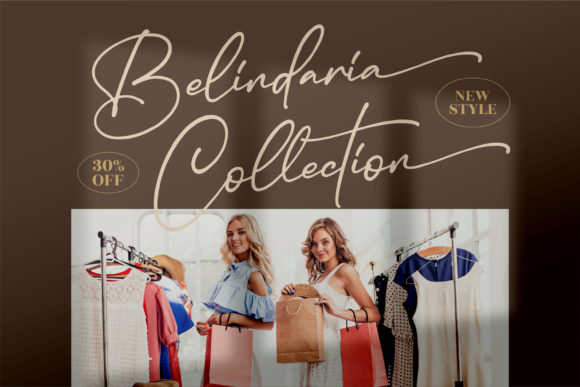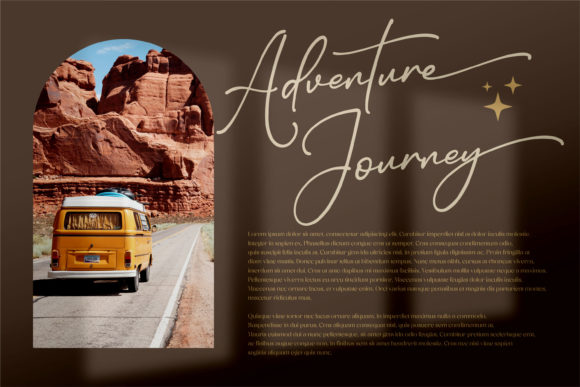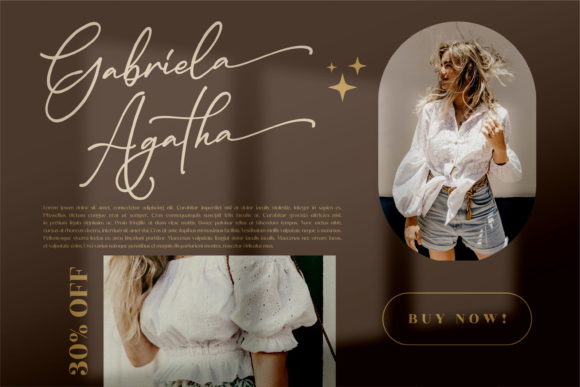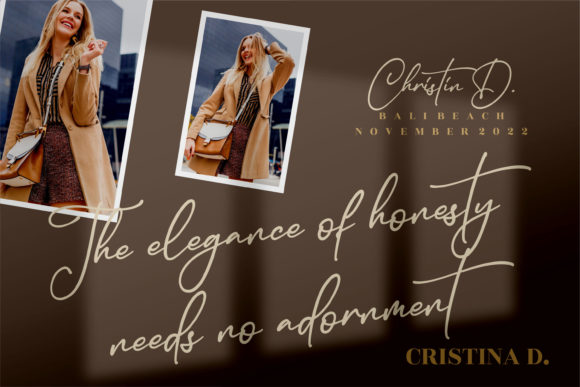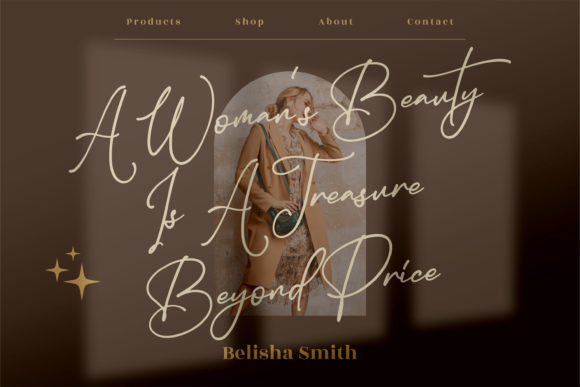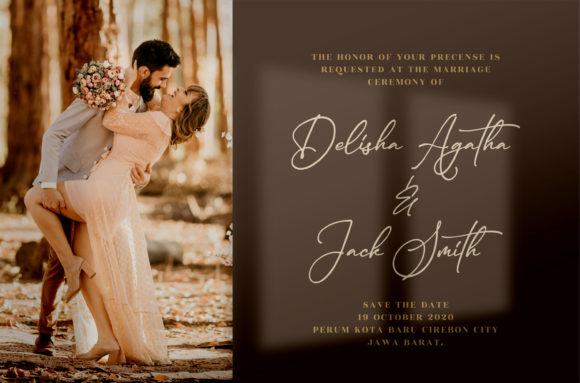
Do you remember the moment when you saw a beautiful, elegant font used in a fashion magazine or a luxury brand’s logo, and you thought, “I need to use this in my next project”? That’s exactly how I felt when I stumbled upon the Casterdam Baletica Font. Its smooth curves and vintage style are perfect for adding a touch of sophistication to any design.
Casterdam Baletica Font is a beautifully balanced script font designed specifically for fashion branding and editorial designs. With its PUA encoding, you can access all of the glyphs and swashes with ease, making it a valuable addition to any designer’s toolkit. Whether you’re working on a high-end fashion campaign or a lifestyle magazine, this font is sure to elevate your design and make it stand out.
Casterdam Baletica Font Key Features
- Font Family: Casterdam Baletica
- Unique Characteristics: Elegant, sophisticated design with a touch of classic ballet-inspired flair, suitable for luxury branding, fashion, and high-end publishing
- Font Weight: Offers a range of font weights from Light to Extra Bold, allowing for versatile design applications
Casterdam Baletica Font Review
First impressions of the Casterdam Baletica font are promising. The font’s elegant, cursive design is reminiscent of classical ballet-inspired aesthetics, which makes it suitable for a wide range of creative projects ✨.
- One of the standout features of the font is its high level of customization. Users can adjust the font’s slant, spacing, and size to suit their needs.
- The font supports a wide range of languages, making it a versatile option for international projects.
- The font’s smooth, flowing lines create a beautiful visual effect, particularly when used in headings or titles.
However, there are some limitations to consider ⚠️:
- The font may not be suitable for use in small text sizes, as the characters can become difficult to read.
- The font’s cursive design may not be ideal for projects that require a more formal or traditional look.
- Some users may find the font’s customization options overwhelming, particularly if they are not familiar with font editing software.
In my opinion, the Casterdam Baletica font is a great option for designers looking to add a touch of elegance and sophistication to their projects. While it may not be suitable for every project, it’s definitely worth considering for the right type of design ✨.
For best results, use Casterdam Baletica Font in designs that require a touch of elegance and sophistication, such as:
- Fashion and lifestyle branding
Remember to pair the font with high-quality images and a clear design concept to achieve maximum impact.
Alternatives to Casterdam Baletica Font
Oswald is a sans-serif font that is highly legible and versatile. It is suitable for both body text and headlines. Oswald has a more modern feel compared to Casterdam Baletica Font, which has a more classic and elegant look. Use Oswald when you need a clean and minimalist design.
Lato is a sans-serif font that is highly customizable and has multiple weights. It has a more modern and sleek look compared to Casterdam Baletica Font. Lato is suitable for both body text and headlines, and it is particularly well-suited for digital media. Use Lato when you need a modern and sophisticated design.
Playfair Display is a serif font that is highly decorative and elegant. It is suitable for headlines and titles, but not for body text. Playfair Display has a more classic and luxurious look compared to Casterdam Baletica Font. Use Playfair Display when you need a high-end and sophisticated design.
Arimo Font
Arimo is a sans-serif font that is highly legible and has a clean design. It is suitable for both body text and headlines. Arimo has a more modern and minimalist look compared to Casterdam Baletica Font. Use Arimo when you need a simple and easy-to-read design.
Q: Are there any specific font pairing recommendations for Casterdam Baletica?
For pairing with Casterdam Baletica, we recommend using fonts with a similar serif or script style. Some popular pairing options include serif fonts like Georgia or Merriweather, or script fonts like Lobster or Pacifico. Avoid pairing Casterdam Baletica with sans-serif fonts, as this can create visual tension.